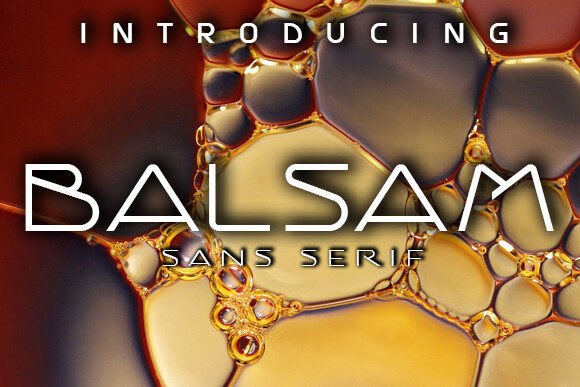
Balsam Font: Elevate Your Designs with this Stunning Font Family
Are you looking for a font that can add a touch of elegance and sophistication to your designs? Look no further than the Balsam Font. This stunning font family is perfect for designers who want to take their work to the next level. In this article, we’ll explore the features and benefits of the Balsam Font, and how you can use it to create amazing designs for posters, flyers, t-shirts, and more.
What is Balsam Font?
Balsam Font is a modern sans-serif font family that was designed to provide a clean and elegant look to your designs. It features a unique and stylish design that makes it perfect for a wide range of applications, from posters and flyers to t-shirts and branding materials. The font comes in a range of weights, from light to bold, making it versatile and easy to use.
Key Features of Balsam Font
- Clean and Elegant Design: Balsam Font features a clean and elegant design that makes it perfect for designs that require a sophisticated look.
- Multiple Weights: The font comes in a range of weights, from light to bold, making it versatile and easy to use.
- Wide Range of Applications: Balsam Font can be used for a wide range of applications, from posters and flyers to t-shirts and branding materials.
- Easy to Read: The font is easy to read, even at small sizes, making it perfect for body text and headlines.
Benefits of Using Balsam Font
There are many benefits to using Balsam Font in your designs. Here are a few:
- Adds Elegance and Sophistication: Balsam Font adds a touch of elegance and sophistication to your designs, making them stand out from the crowd.
- Versatile: The font is versatile and can be used for a wide range of applications, from posters and flyers to t-shirts and branding materials.
- Easy to Use: Balsam Font is easy to use and comes in a range of weights, making it perfect for designers of all skill levels.
How to Use Balsam Font
Using Balsam Font is easy. Here are a few tips to get you started:
- Choose the Right Weight: Choose the right weight of the font for your design. For example, use a light weight for body text and a bold weight for headlines.
- Experiment with Colors: Experiment with different colors to find the perfect combination for your design.
- Pair with Other Fonts: Balsam Font can be paired with other fonts to create a unique and stylish look.
Using Balsam Font for Posters
Balsam Font is perfect for posters. Here are a few tips for using the font for posters:
- Use a Bold Weight: Use a bold weight of the font for headlines to grab attention.
- Add Visual Elements: Add visual elements, such as images and graphics, to make your poster stand out.
- Keep it Simple: Keep your design simple and easy to read to ensure your message gets across.
Using Balsam Font for Flyers
Balsam Font is also perfect for flyers. Here are a few tips for using the font for flyers:
- Use a Light Weight: Use a light weight of the font for body text to make it easy to read.
- Add a Call-to-Action: Add a call-to-action, such as a coupon or promotion, to encourage people to take action.
- Keep it Concise: Keep your design concise and to the point to ensure your message gets across.
Using Balsam Font for T-Shirts
Balsam Font is perfect for t-shirts. Here are a few tips for using the font for t-shirts:
- Use a Bold Weight: Use a bold weight of the font for designs that need to stand out.
- Keep it Simple: Keep your design simple and easy to read to ensure your message gets across.
- Experiment with Colors: Experiment with different colors to find the perfect combination for your design.
Balsam Font is a stunning font family that can add a touch of elegance and sophistication to your designs. With its clean and elegant design, multiple weights, and wide range of applications, it’s perfect for designers who want to take their work to the next level. Whether you’re designing posters, flyers, t-shirts, or branding materials, Balsam Font is a great choice.